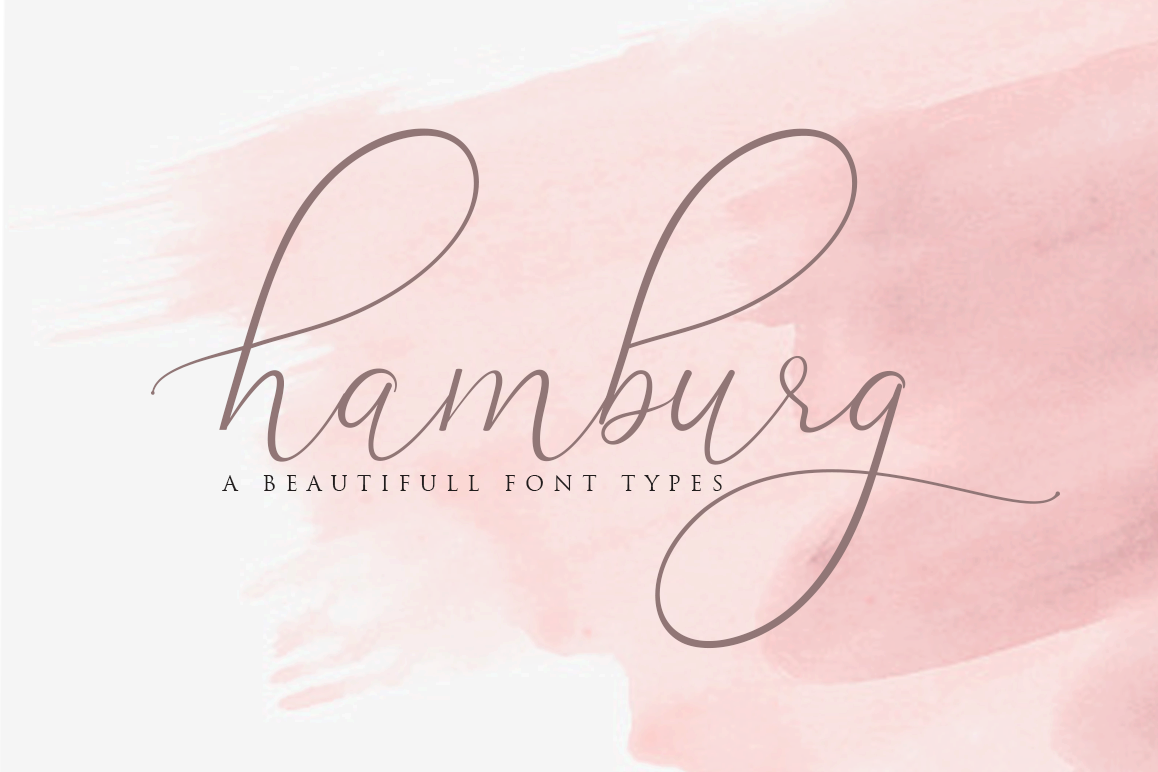
Hamburg Love Font Pretty
Just introduce my New Collection font.
Hamburg is a beautiful font for your brand and I love using this one with Photoshop for your requirement.
- Ligature
- alternates for lowercase
I believe You will love to use this font for anything brand.